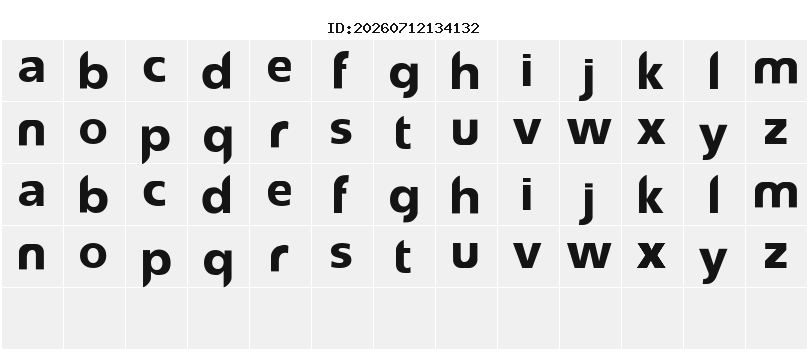
reasonSystem Preview
• Font Name: reasonSystem
• Designer: trame communication visuelle - Jessica Goodwin
• Description: declinaison sur frutiger
About reasonSystem.ttf
reasonSystem.ttf is a modern, elegant sans-serif font designed for ultimate readability and visual harmony. Perfect for branding, headlines, web design, and print materials.